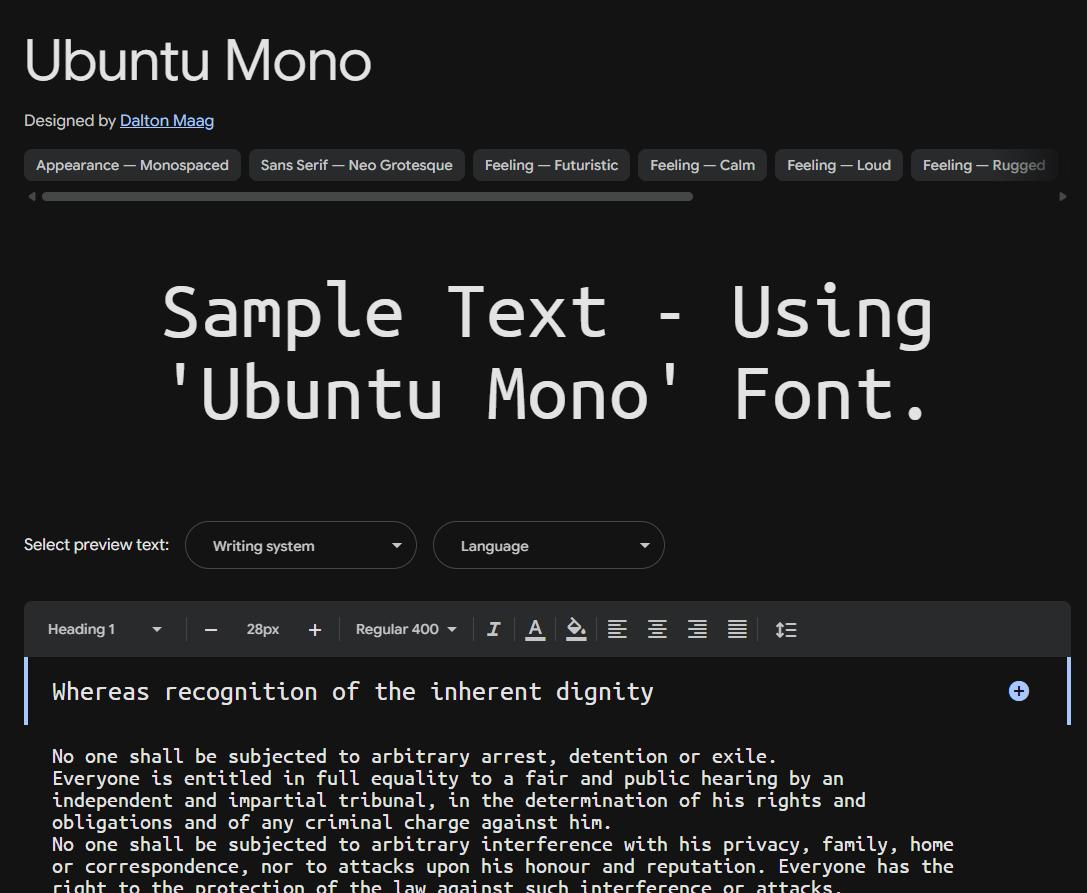
Designed by the renowned foundry Dalton Maag as a cornerstone of the Canonical brand identity, Ubuntu Mono transcends its utilitarian purpose by infusing humanist typographic sensibilities into a rigid monospaced framework. Comprising four essential styles-Regular, Italic, Bold, and Bold Italic-the typeface is technically engineered for high legibility within terminal environments, utilizing a generous x-height and distinct glyph differentiation to mitigate character confusion during syntax highlighting. By applying the family's signature "spurless" design philosophy to a fixed-width grid, Dalton Maag optimized the 1000-unit em box for superior sub-pixel rendering and screen-readability, providing developers with an OpenType tool that balances organic curves with the precise structural demands of modern programming interfaces.
Engineered by Dalton Maag to enhance the command-line interface, the Ubuntu Mono font family operates as a sophisticated Neo-Grotesque sans serif that meticulously balances a stiff, monospaced structural grid with the signature humanist curves that define its happy and approachable personality. This typeface achieves a unique duality: it projects a rugged, business-centric reliability through its precise geometric alignment while simultaneously evoking a futuristic and calm legibility essential for modern software development. By integrating high x-heights and distinctive terminal flares, the design remains visually loud and semantically clear, bridging the gap between a vintage teleprinter aesthetic and a sleek, high-tech atmosphere that feels both industrial and welcomingly vibrant.
Ubuntu Mono, while a masterpiece of humanist monospaced engineering by Dalton Maag for technical environments, proves inherently incompatible with high-end luxury branding or dense editorial publishing where proportional kerning and varied character widths are essential for fluid reading rhythms. In industries such as premium horology or haute couture, the font's rigid character grid and distinctive rounded terminals-optimized for bit-stream clarity and command-line distinctiveness-clash with the sophisticated optical sizing and elegant stroke modulation required to convey exclusivity and heritage. Furthermore, its fixed horizontal rhythm creates inefficient text blocks in long-form legal documentation, failing to provide the compact information density of proportional serifs and potentially diluting professional brand equity with an aesthetic forever tethered to open-source software development rather than bespoke commercial prestige.
Ubuntu Mono is specifically engineered for terminal environments and code editors where character distinction is paramount for user efficiency. Its high x-height and rounded terminals facilitate superior readability by stabilizing the horizontal flow of text across various screen resolutions and pixel densities.
The Ubuntu Mono family incorporates a dedicated italic variant that features unique letterforms rather than a simple slanted transformation of the regular weights. These true italics leverage specialized calligraphic constructions to ensure that emphasized code snippets remain legible without disrupting the fixed-width character advance.
While primarily a screen-first typeface, Ubuntu Mono maintains its structural integrity and sharp outlines when rendered in high-resolution print formats. The open apertures and consistent stroke contrast prevent ink gain from obscuring delicate details, ensuring clear legibility even at 1200 DPI output.
The font family is provided in four standard styles: Regular, Italic, Bold, and Bold Italic, covering the essential needs of technical documentation. This focused weight distribution is optimized to maintain a constant em-width, preventing layout shifts when switching between styles in a monospaced grid.
The two families were designed with a shared aesthetic language, allowing them to coexist seamlessly within complex user interface designs. Because they share identical cap-heights and baseline metrics, they provide a harmonious visual transition that eliminates optical jarring during mixed-typeography rendering.
Ubuntu Mono provides comprehensive glyph coverage for a wide range of international languages, including extensive support for Latin and Cyrillic scripts. The inclusion of the Unicode Latin Extended-B block ensures that technical specifications remain consistent across diverse linguistic localized environments.
The typeface excels in constrained spaces due to its generous character spacing and distinct, non-overlapping glyph shapes. Advanced hinting instructions embedded in the font data allow for crisp sub-pixel rendering, maintaining the clarity of thin vertical stems even at 8pt sizes.
The design features specialized character shapes for operators, brackets, and punctuation to assist developers in identifying syntax at a glance. Its unique slashed-zero and distinct uppercase 'I' vs lowercase 'l' construction significantly reduce the character disambiguation error rate in dense source code.
The fixed-width nature of the typeface creates a predictable, rigid grid that simplifies the organization of tabular data and columnar information. By enforcing a uniform horizontal advance for every character, designers can calculate precise text container widths based on absolute character counts and em-space values.
The font offers a modern, functional aesthetic that conveys technical precision while remaining approachable due to its humanist curves. This "technical warmth" differentiates it from traditional mechanical monospaced fonts, providing a unique brand voice that balances algorithmic logic with organic design principles.